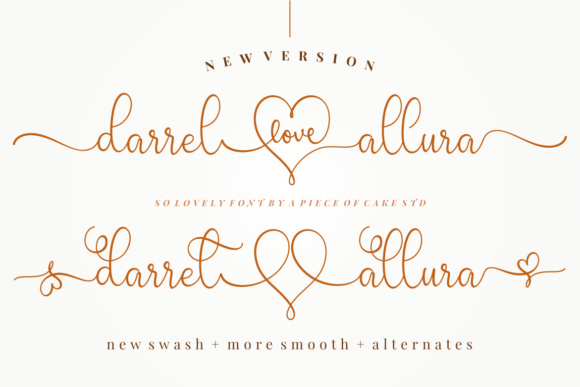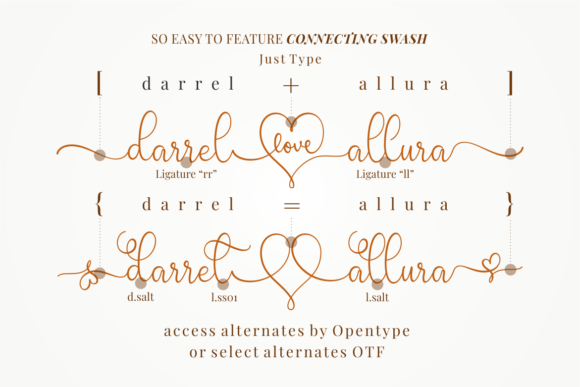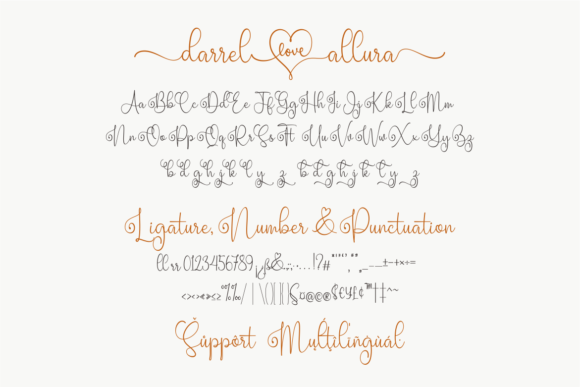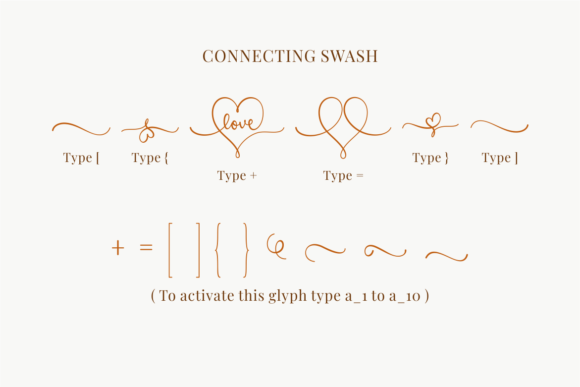
New Darrel Allura Font
About the New Darrel Allura Font
Step up your design game with New Darrel Allura Font, a font that exudes confidence and style. New Darrel Allura is a magical script font carefully created with a touch of elegance. Whether you’re looking for fonts for Instagram or calligraphy scripts for DIY projects, this font will turn any creative idea into a true piece of art! New Darrel Allura is PUA encoded which means you can access all of the glyphs and swashes with ease!
Its elegant, slightly whimsical style makes New Darrel Allura ideal for headlines, short text blocks in invitations or branding materials, and even select packaging elements where a touch of sophistication is desired. Avoid using it for body text or lengthy paragraphs; its decorative nature compromises readability at smaller sizes.
The font’s personality is best described as sophisticated yet playful. It projects a sense of gentle elegance and charm. To complement this, pair it with a clean sans-serif like Montserrat for a modern contrast or a classic serif like Garamond for a more traditional feel. A geometric sans-serif such as Futura could add a touch of contemporary edge.
Consider pairing New Darrel Allura with a simple, modern script for logos or watermarks to create a layered effect, enhancing its inherent elegance. Avoid pairing with other highly decorative fonts as this may result in visual clutter.